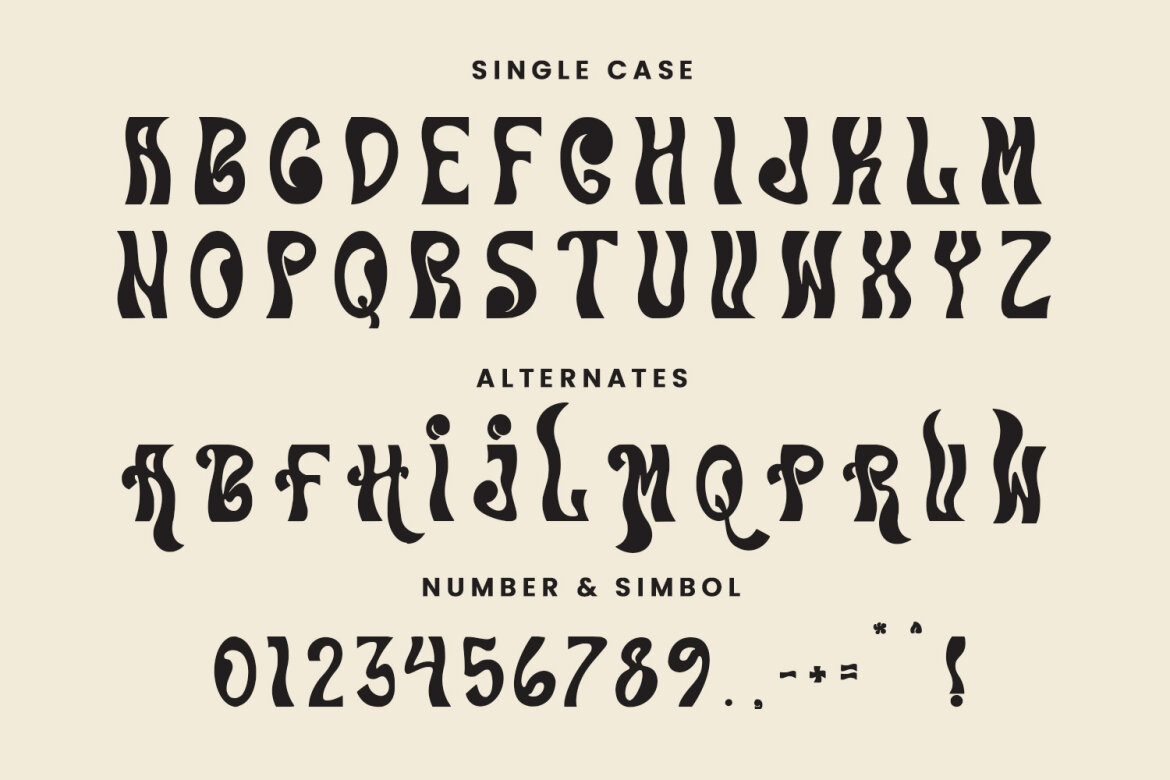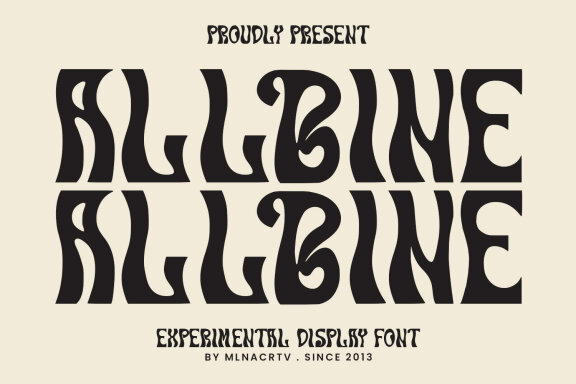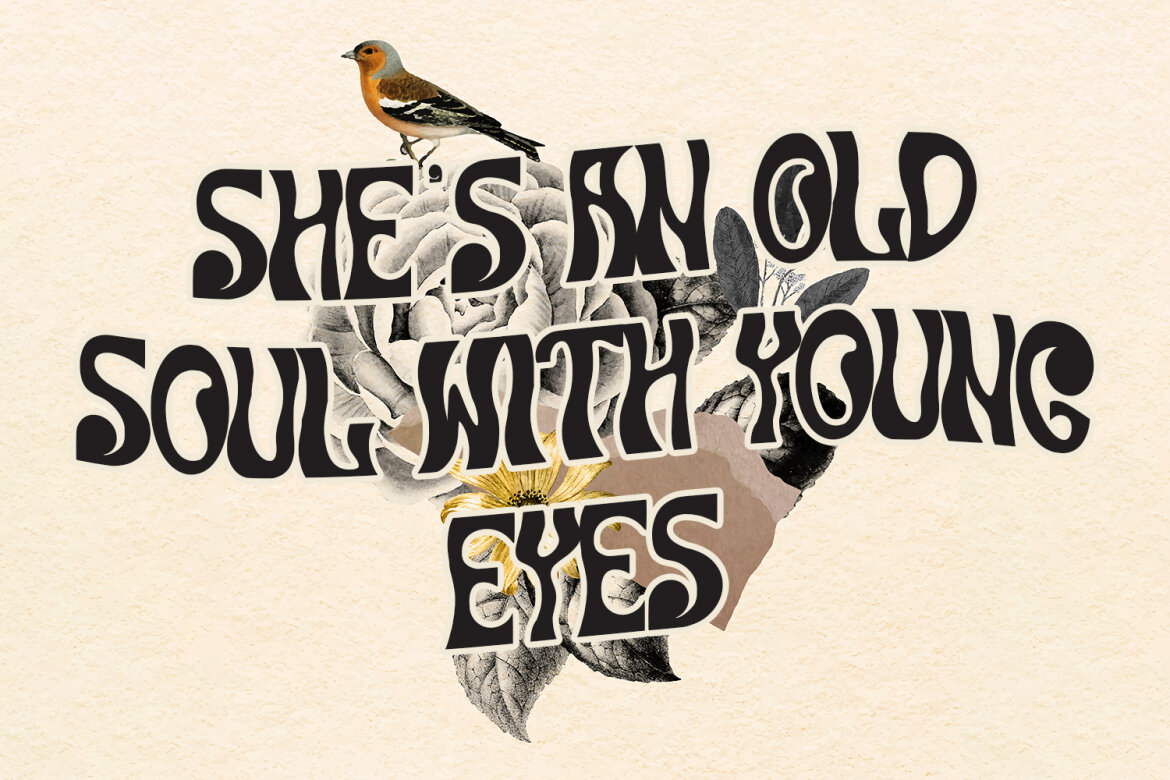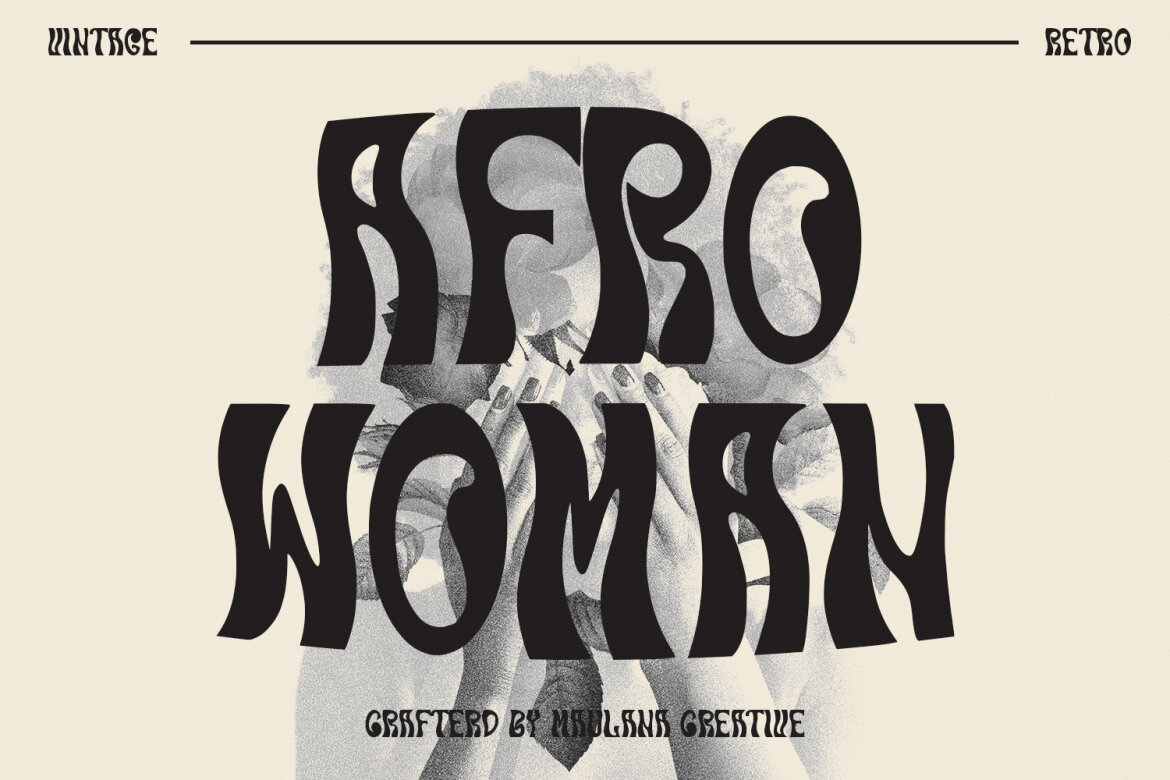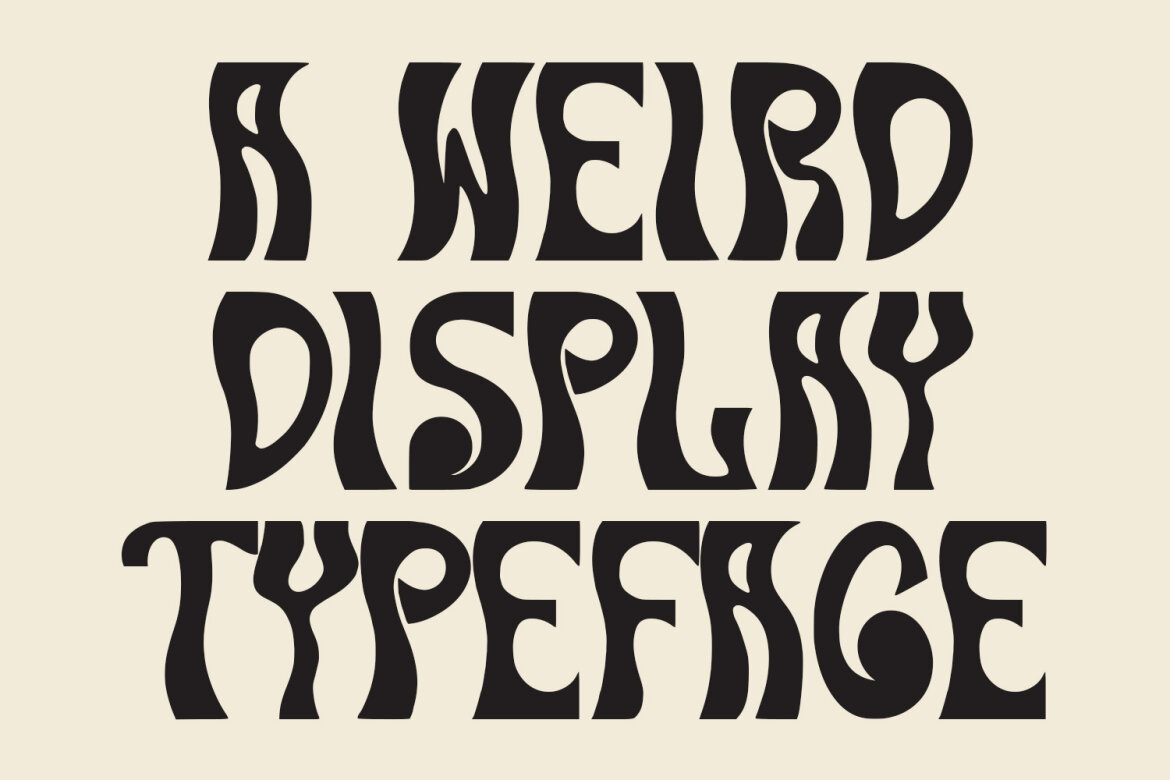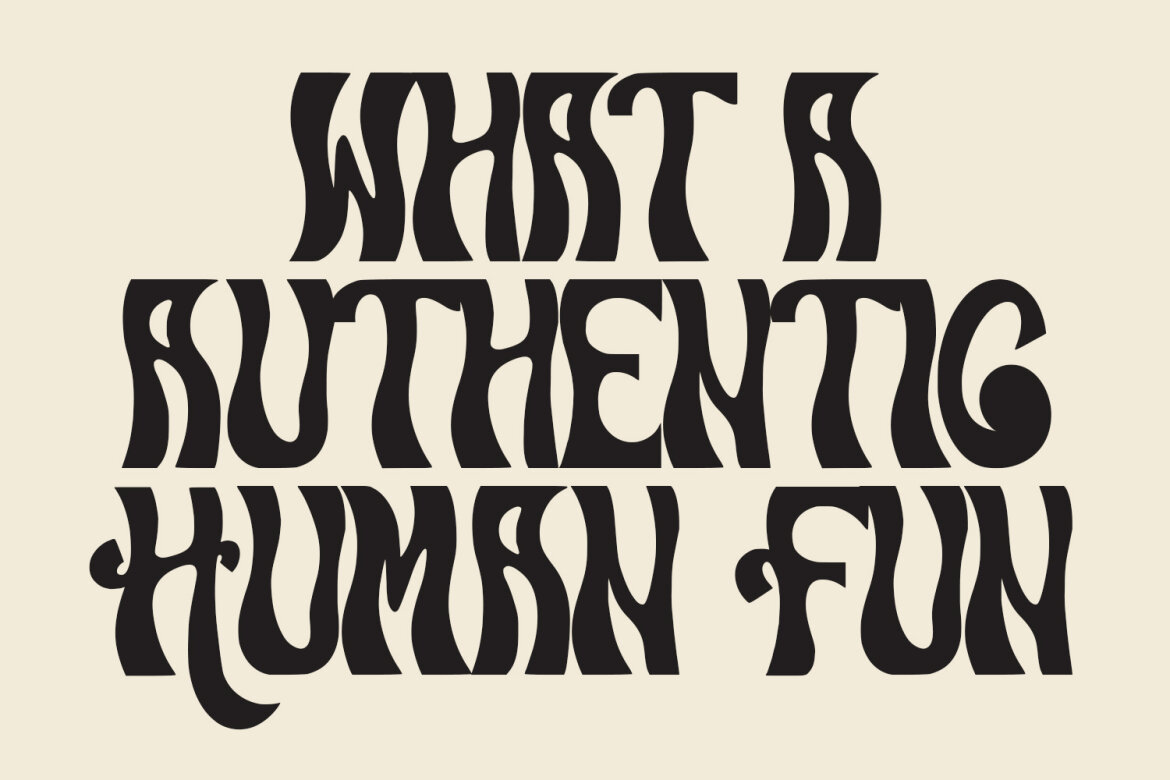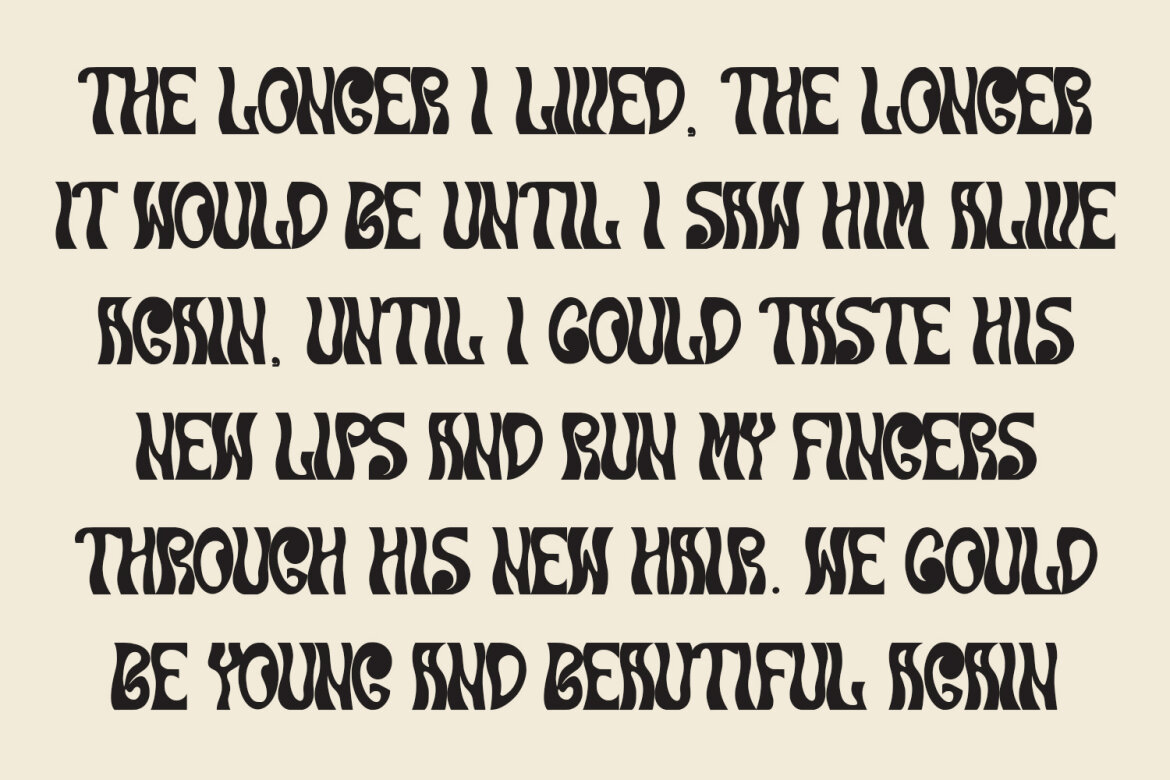
Allbine Experimental Display FREE Font
Allbine
Allbine experimental display typeface font, fun character with a bit of ligatures and alternates. To give you an extra creative work. Allbine font support multilingual more than 100+ language. This font is good for logo design, Social media, Movie Titles, Books Titles, a short text even a long text letter and good for your secondary text font with script or serif. Make a stunning work with Allbine font.